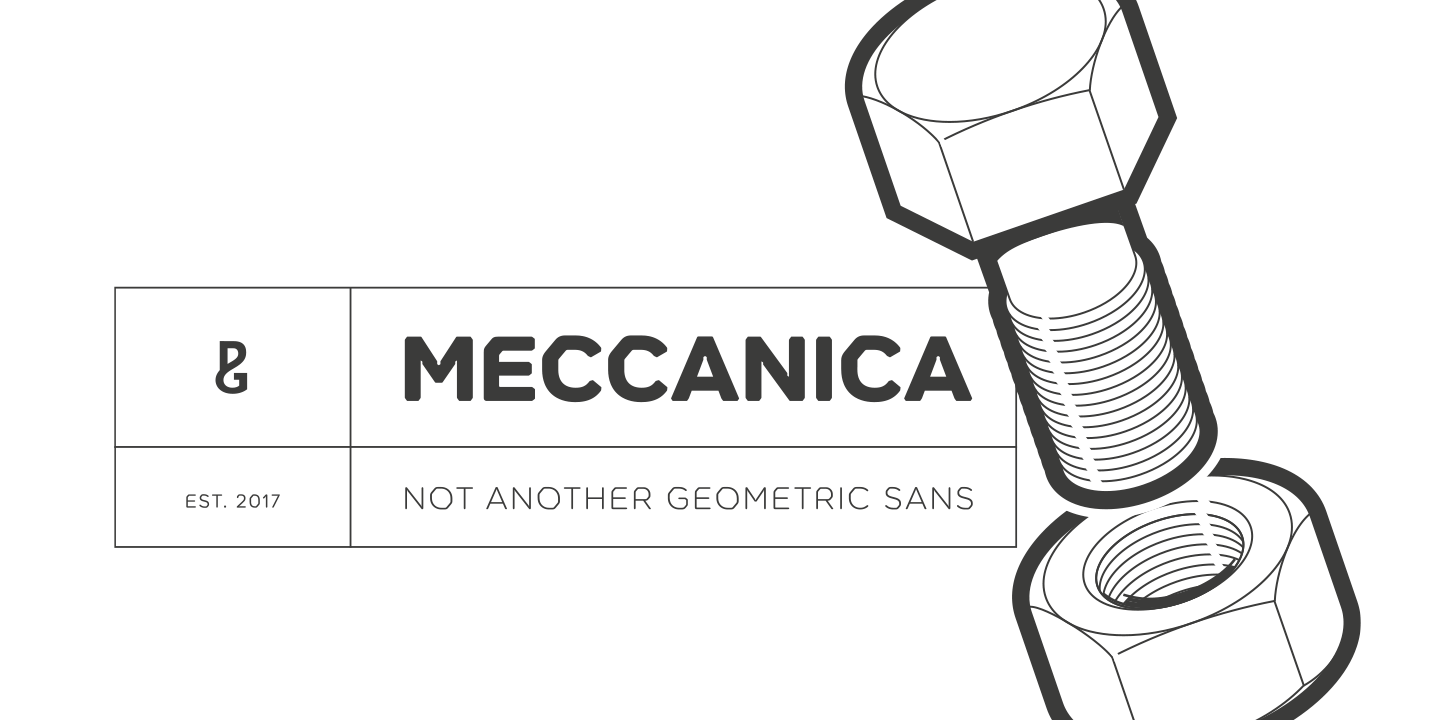
About the Meccanica Font
About Meccanica Font Family Meccanica is pretty unique and difficult to describe, suffice to say that it’s a geometric sans typeface with some hexagonal DNA, Meccanica’s defining features include soft, chamfered edges, angular bowls and shoulders, angled/hexagonal terminals, and semi-hexagonal ink traps (in a nutshell), View the microsite for full info: http://meccanica
infoMeccanica was inspired by the mechanics of engineering – the humble nut and bolt in particular – it is a versatile typeface that will give your own typography a distinctive voice, Initially designed as a display typeface (for headlines, logotype, branding and short runs of text), Meccanica also reads well as body copy – particularly at smaller point sizes